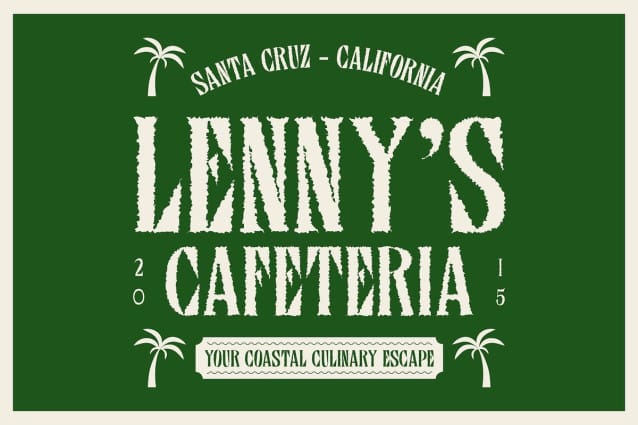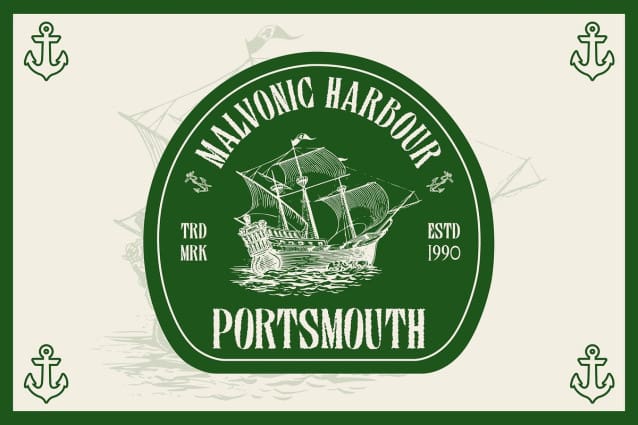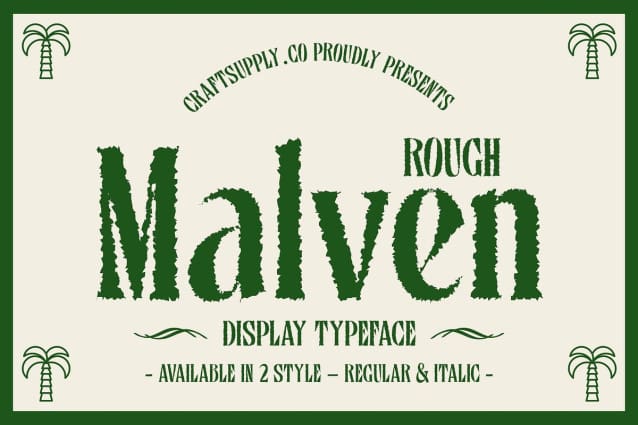
Malven Rough Font
Malven Rough Font is a modern serif font that artfully combines traditional serif design elements with a distinctive rough effect. The classic serifs provide a foundation of structure and elegance, while the rough effect introduces a rugged, uneven texture that adds a dynamic and artistic flair. This fusion creates a font that balances sophistication with a creative, contemporary twist.
Unique Character for Bold Designs The integration of a modern vibe with a vintage touch makes Malven Rough ideal for projects that need to make a memorable statement. Its unique character shines in creative branding, eye-catching posters, and impactful promotional materials. The font’s textured appearance ensures that it stands out, bringing both refinement and a touch of casual, artistic energy to any design.
Versatile and Distinctive Malven Rough offers a versatile design that bridges the gap between classic elegance and modern innovation. The font’s ability to convey both sophistication and artistic flair makes it perfect for diverse applications. Whether used in high-end branding, engaging marketing materials, or creative design projects, Malven Rough delivers a strong visual impact with its distinctive and textured style.